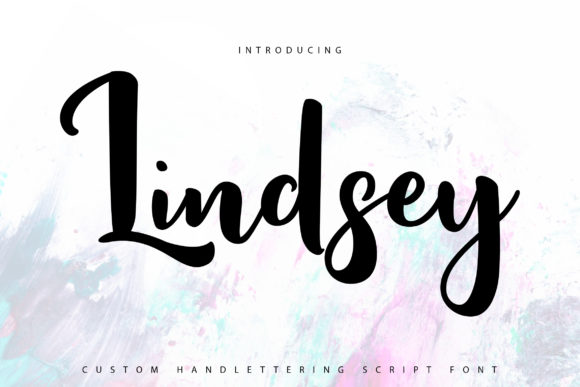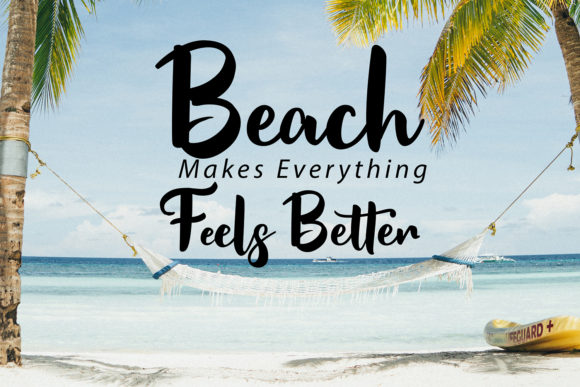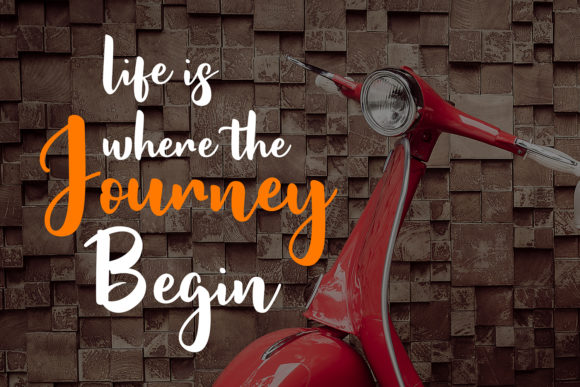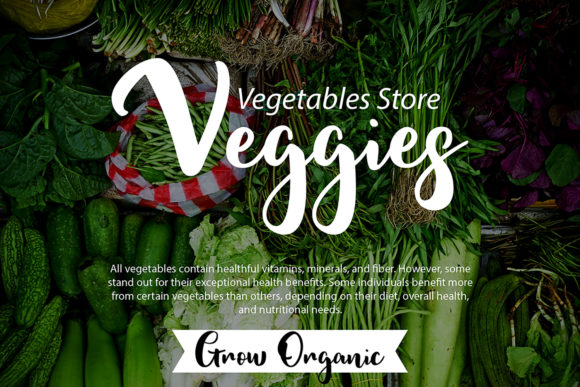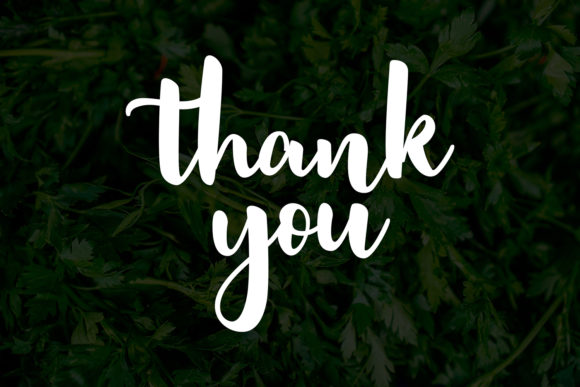
Lindsay Font
About Lindsay Font
Lindsay radiates style and will turn any crafting project into a true masterpiece. Fall in love with its modern charm!